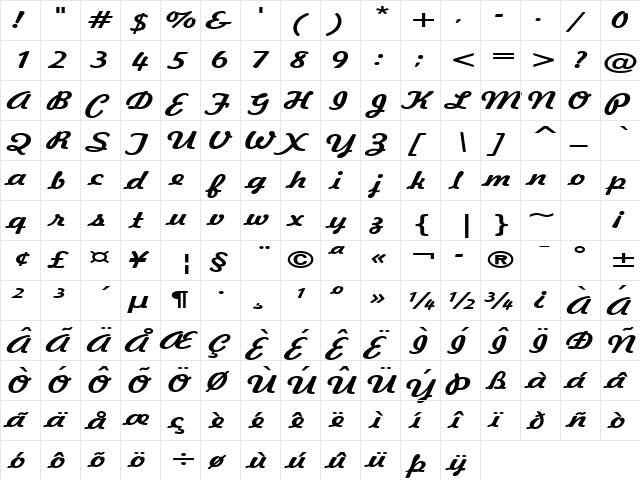
Jott 43 Extended Bold
Design Context for Jott 43 Extended Typeface
Jott 43 Extended takes a measured approach to typography — its balanced proportions and neutral character make it a reliable workhorse for both digital and print work. The heavy weight commands attention and anchors typographic hierarchies.